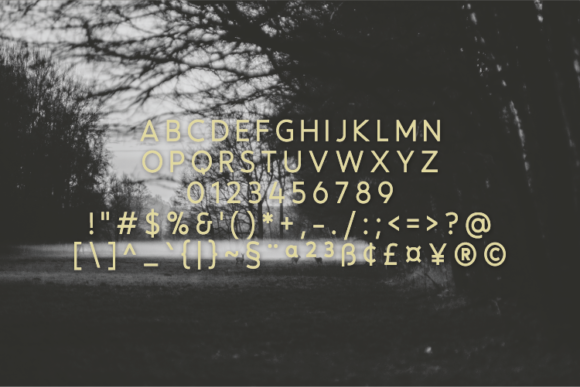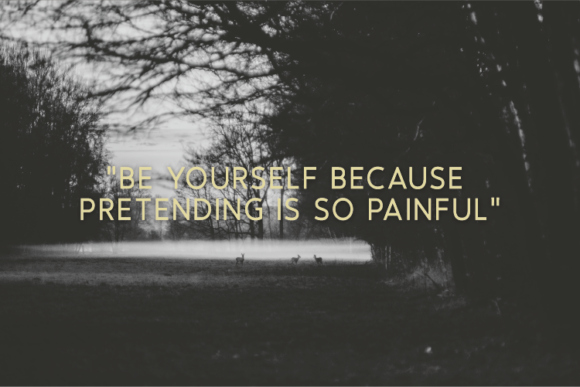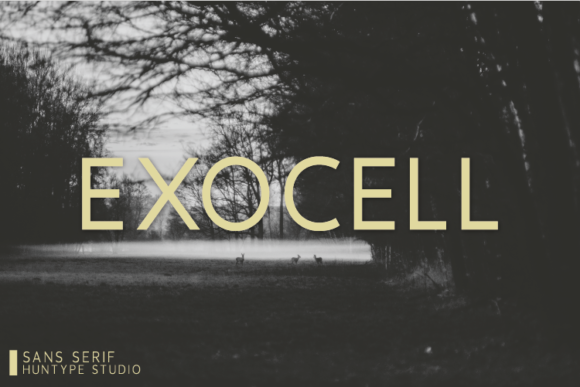
Exocell Font: The Ultimate Sans Serif Font for Modern Designs
Are you tired of using the same old fonts in your designs? Look no further than Exocell Font, a neat and simple sans serif font that’s perfect for adding a touch of modernity to your projects. With its clean, thin, and smooth vibe, Exocell Font is sure to be a hit with designers and crafters alike.
What is Exocell Font?
Exocell Font is a sans serif font that’s designed to be both elegant and versatile. Its clean lines and simple shapes make it perfect for use in a wide range of designs, from logos and branding materials to websites and social media graphics. Whether you’re a professional designer or a DIY crafter, Exocell Font is a great choice for anyone looking to add a touch of sophistication to their work.
Key Features of Exocell Font
So what sets Exocell Font apart from other fonts out there? Here are just a few of its key features:
- Clean and Simple Design: Exocell Font has a clean and simple design that’s perfect for modern designs. Its thin lines and smooth curves make it easy to read and visually appealing.
- Sans Serif: As a sans serif font, Exocell Font doesn’t have any decorative flourishes or serifs, making it perfect for use in digital designs where clarity is key.
- Versatile: Exocell Font is incredibly versatile, making it suitable for use in a wide range of designs, from logos and branding materials to websites and social media graphics.
- Elegant: Despite its simplicity, Exocell Font has an elegant feel that’s perfect for designs where you want to convey a sense of sophistication and style.
Why Use Exocell Font?
So why should you use Exocell Font in your designs? Here are just a few reasons:
- It’s Modern and Fresh: Exocell Font has a modern and fresh feel that’s perfect for designs where you want to convey a sense of innovation and forward-thinking.
- It’s Easy to Read: Exocell Font is incredibly easy to read, making it perfect for use in digital designs where clarity is key.
- It’s Versatile: As mentioned earlier, Exocell Font is incredibly versatile, making it suitable for use in a wide range of designs.
How to Use Exocell Font
So how can you use Exocell Font in your designs? Here are a few ideas:
- Logos and Branding Materials: Exocell Font is perfect for use in logos and branding materials, such as business cards, letterheads, and brochures.
- Websites and Social Media Graphics: Exocell Font is also great for use in digital designs, such as websites, social media graphics, and email marketing campaigns.
- Print Designs: Exocell Font can also be used in print designs, such as posters, flyers, and magazines.
Tips for Using Exocell Font
Here are a few tips for using Exocell Font in your designs:
- Use it with a Bold Color: Exocell Font looks great when paired with a bold color, such as a bright blue or green.
- Experiment with Different Sizes: Exocell Font can be used at a variety of different sizes, from large headings to small body text.
- Pair it with Other Fonts: Exocell Font can be paired with other fonts to create a unique and interesting design.
In conclusion, Exocell Font is a great choice for designers and crafters looking for a modern and versatile sans serif font. Its clean lines, simple shapes, and elegant feel make it perfect for use in a wide range of designs, from logos and branding materials to websites and social media graphics. So why not give Exocell Font a try today and see how it can elevate your designs?